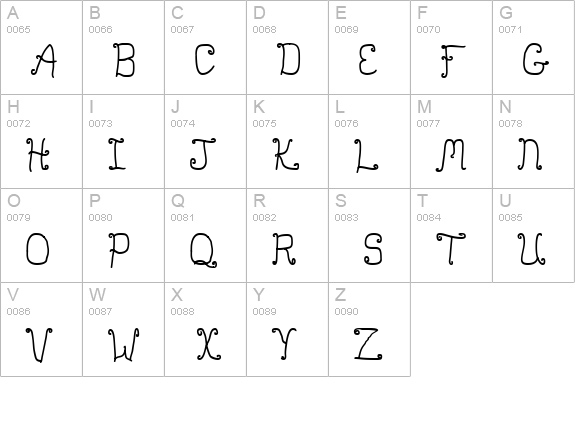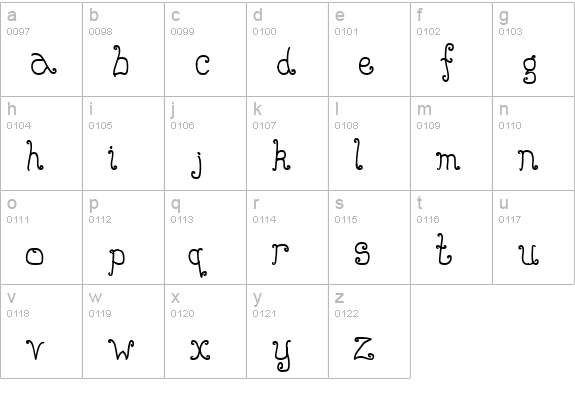
Buttmunch Font Details
Introducing Buttmunch font - a playful and quirky typeface that adds a touch of whimsy to any design project. Buttmunch is a fun and unique font that is sure to catch the eye and bring a sense of lightheartedness to your work. This font is perfect for a variety of uses, from branding and marketing materials to social media graphics and more. Whether you're looking to add a fun twist to your next project or simply want to inject some personality into your designs, Buttmunch is the perfect choice. Best of all, Buttmunch font is available for free download at FontsMarket.com. So go ahead and give your designs a playful edge with Buttmunch font today!